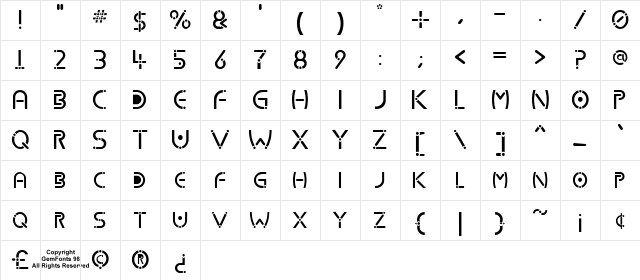
Kharnorric Regular
Design Context for Kharnorric
Kharnorric is a composed and adaptable typeface that performs quietly and consistently across a wide range of design contexts.